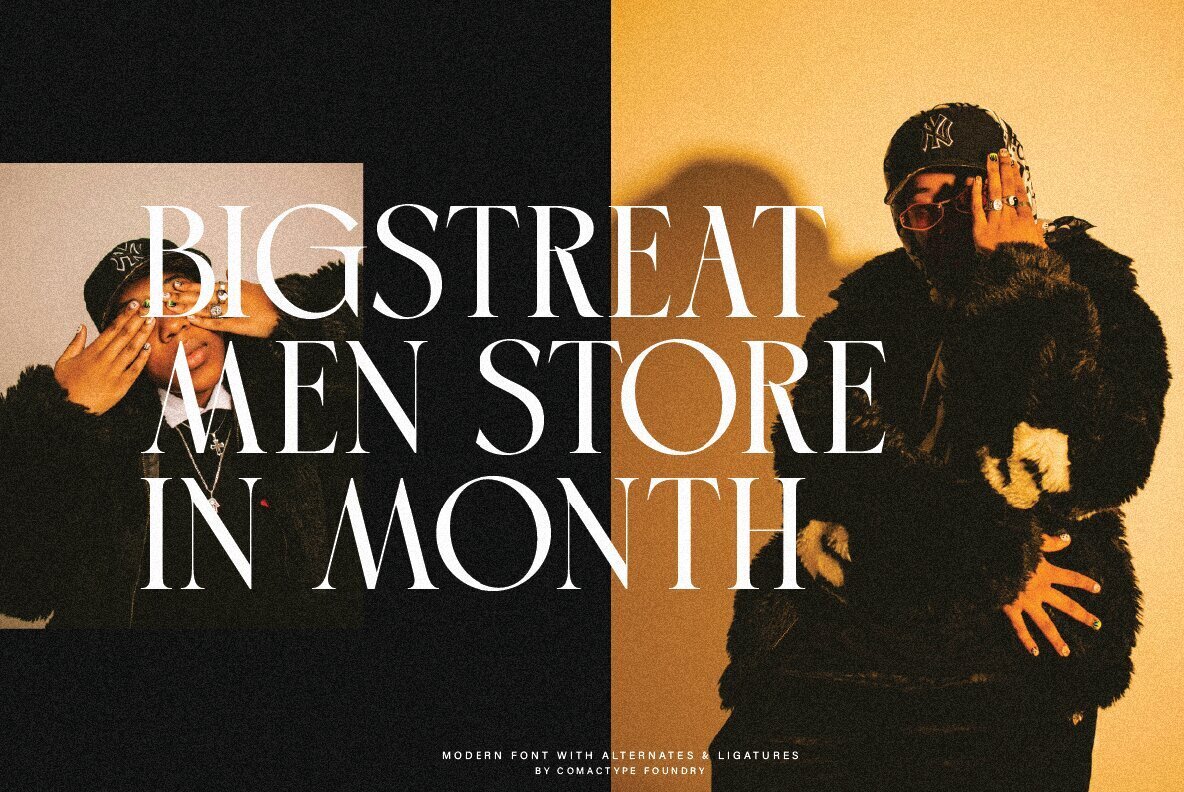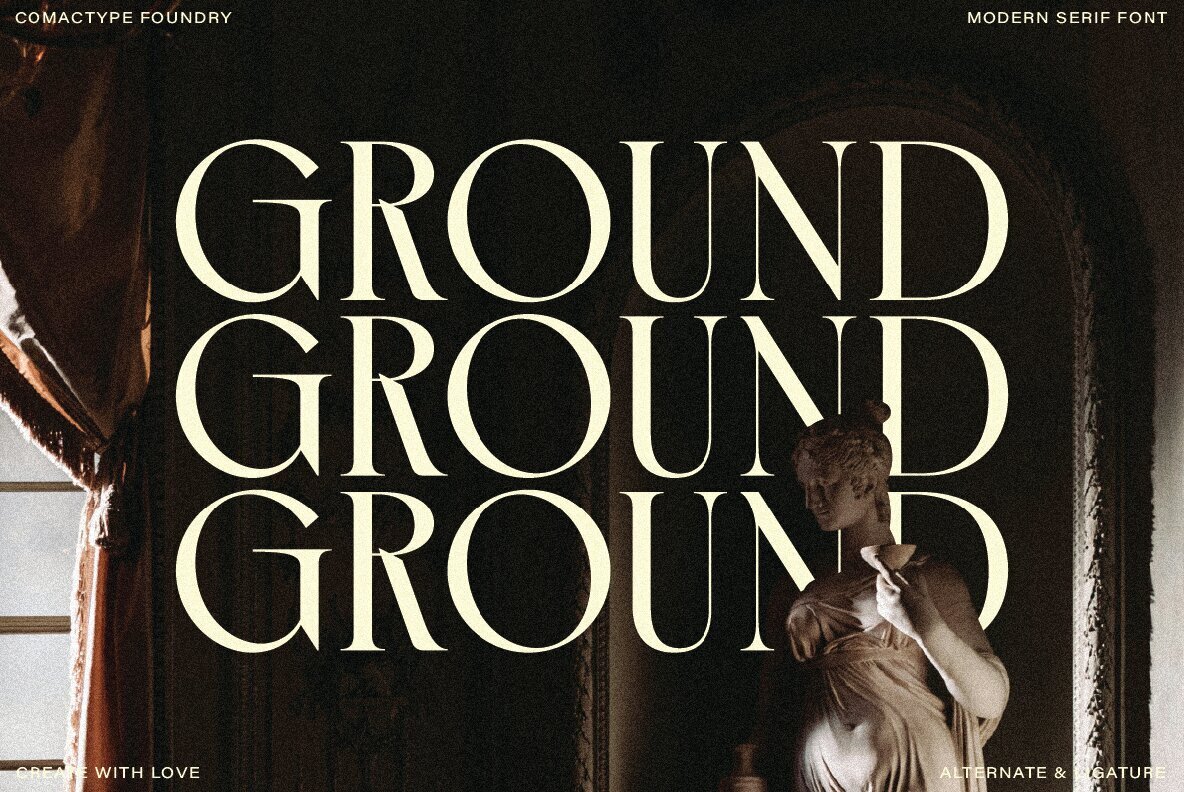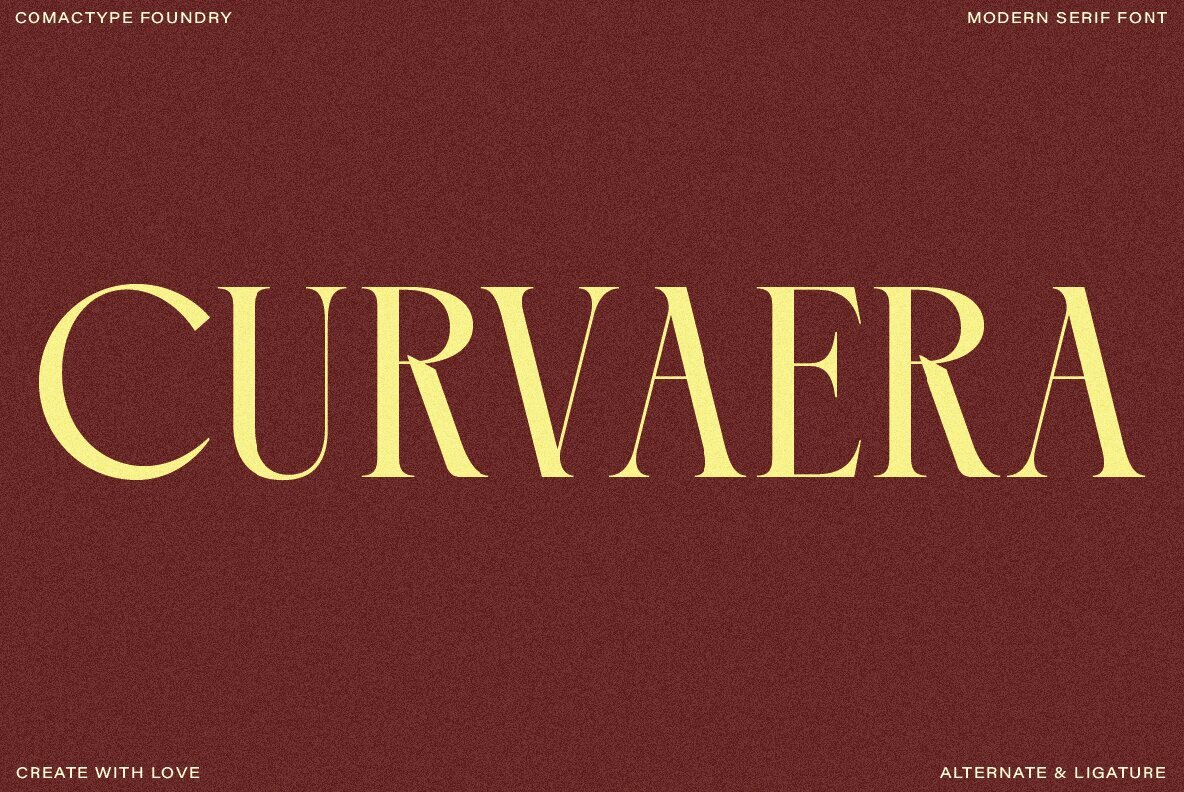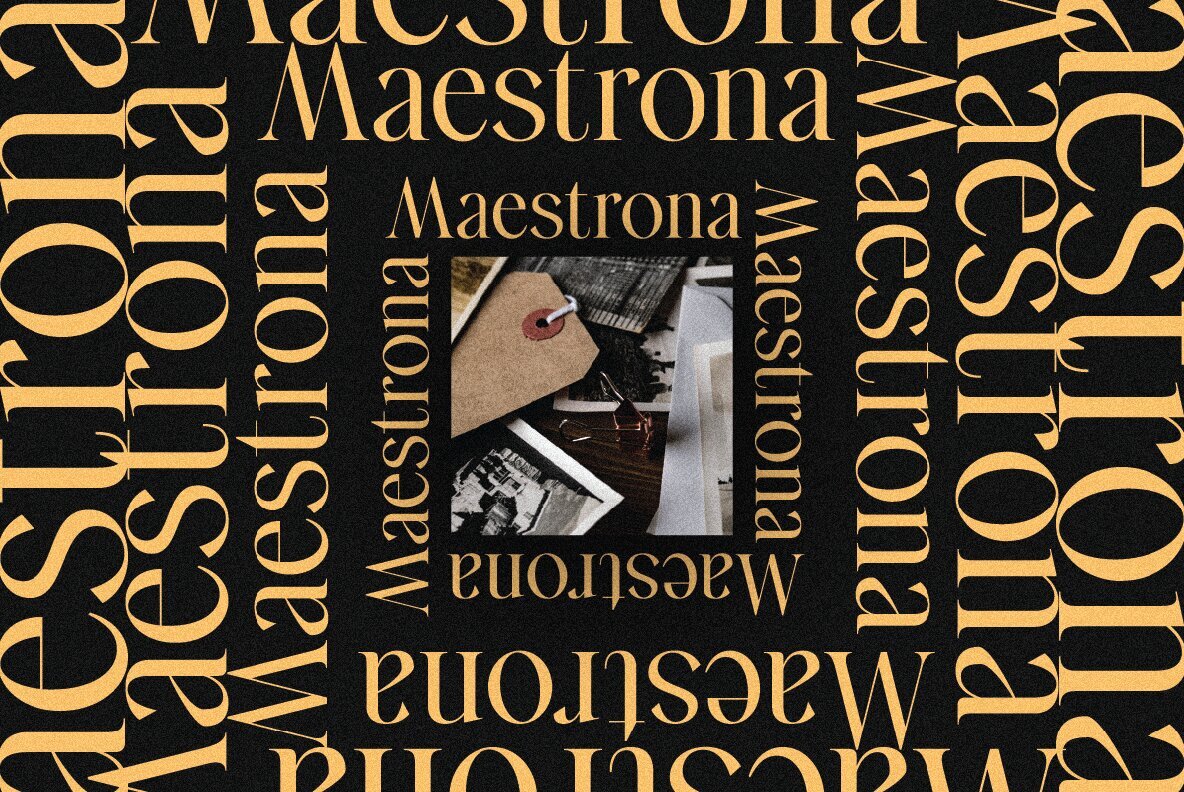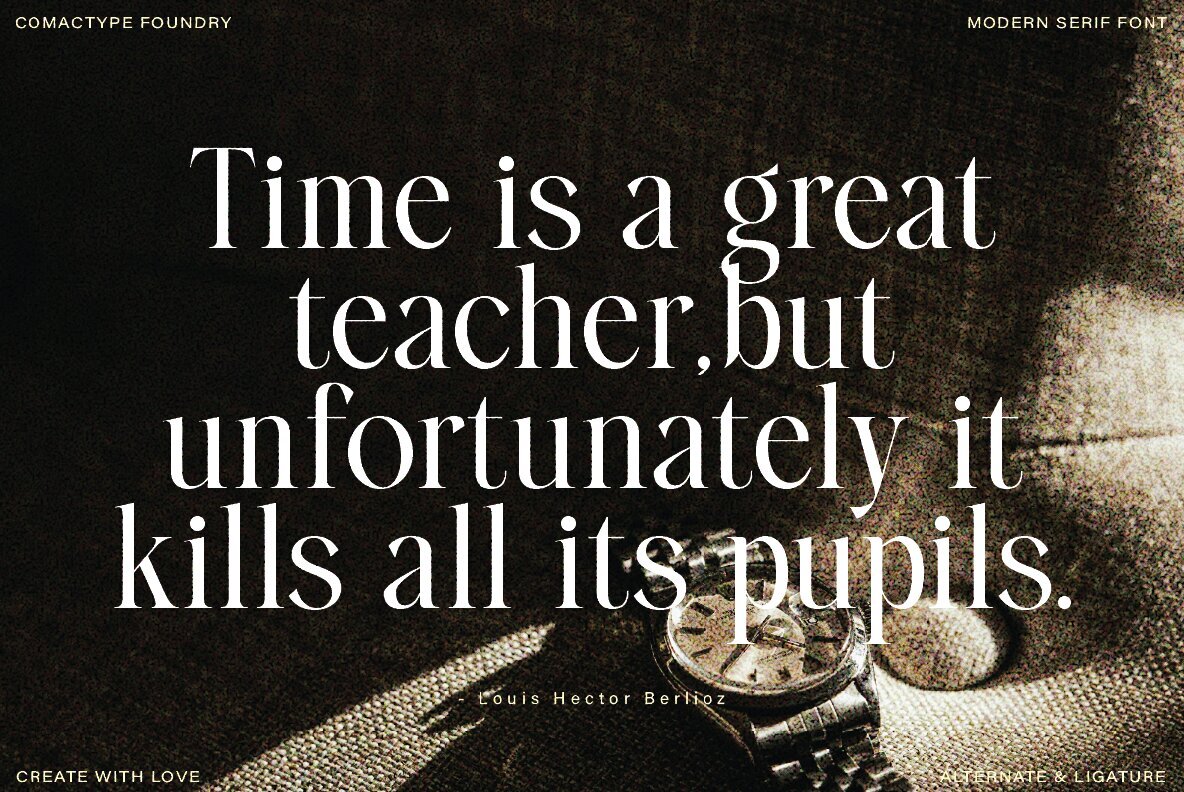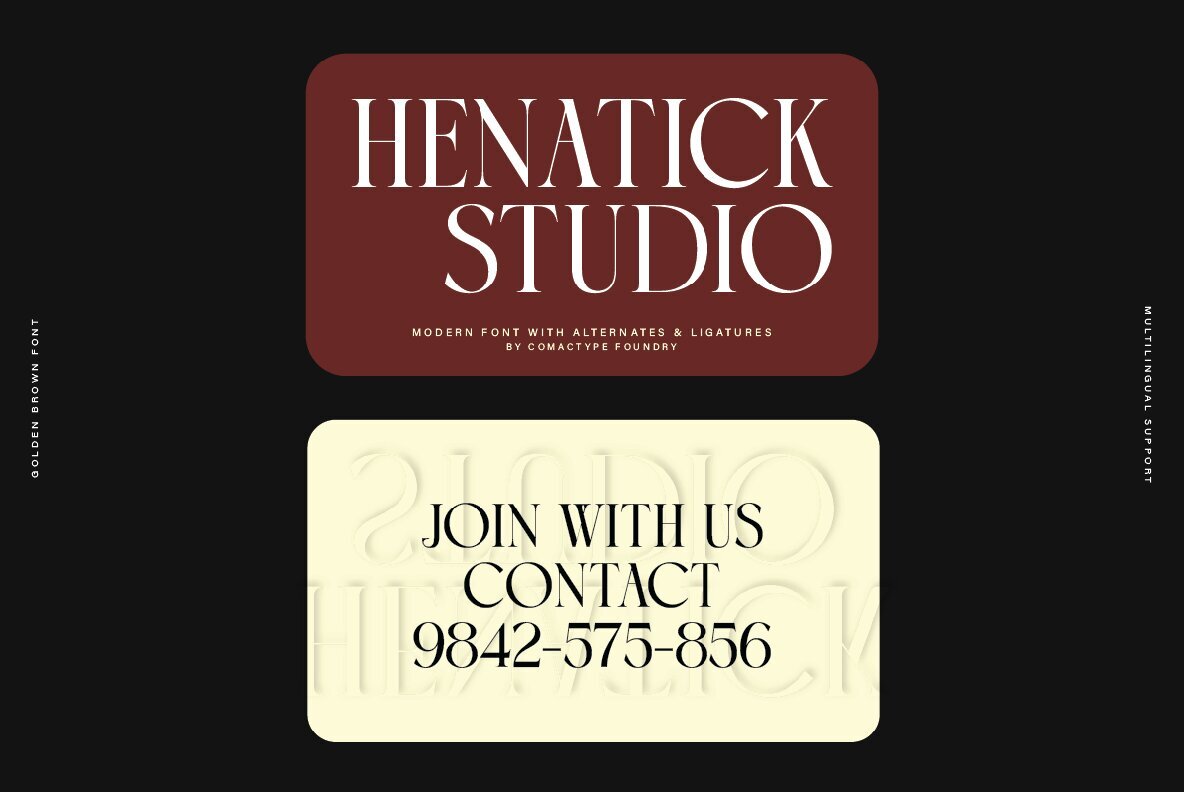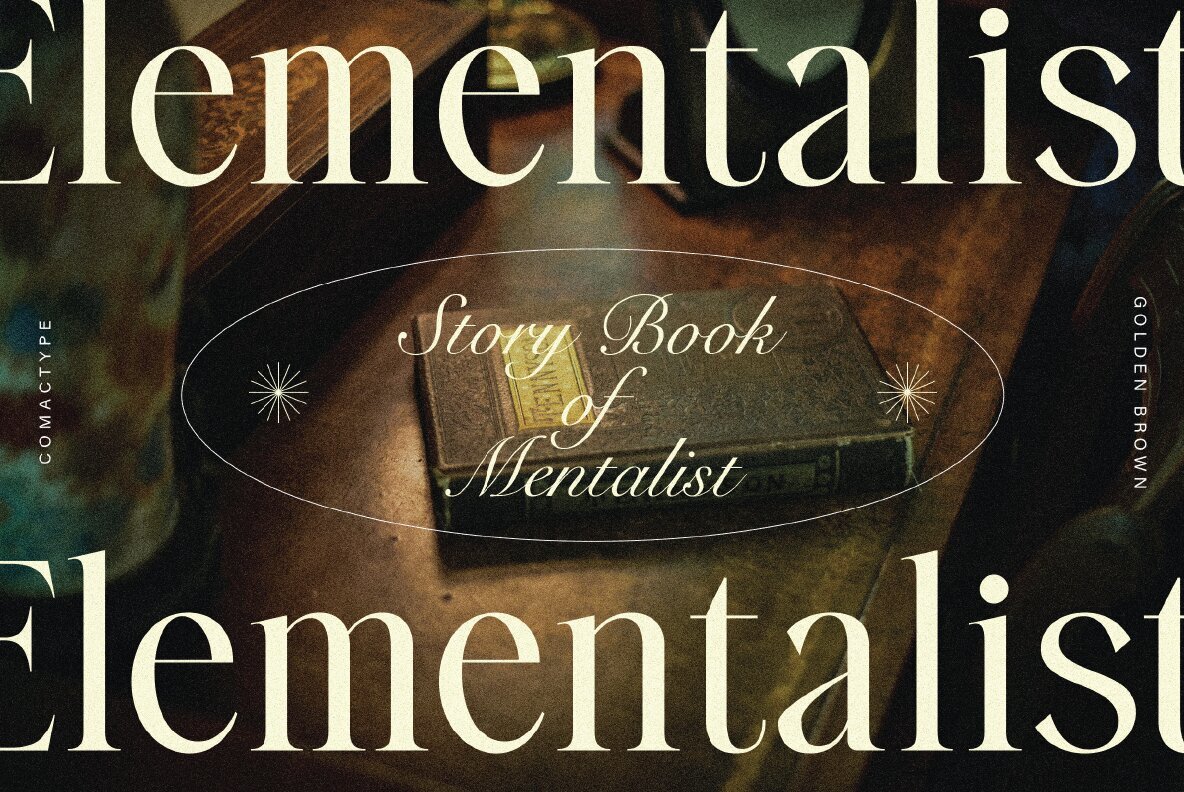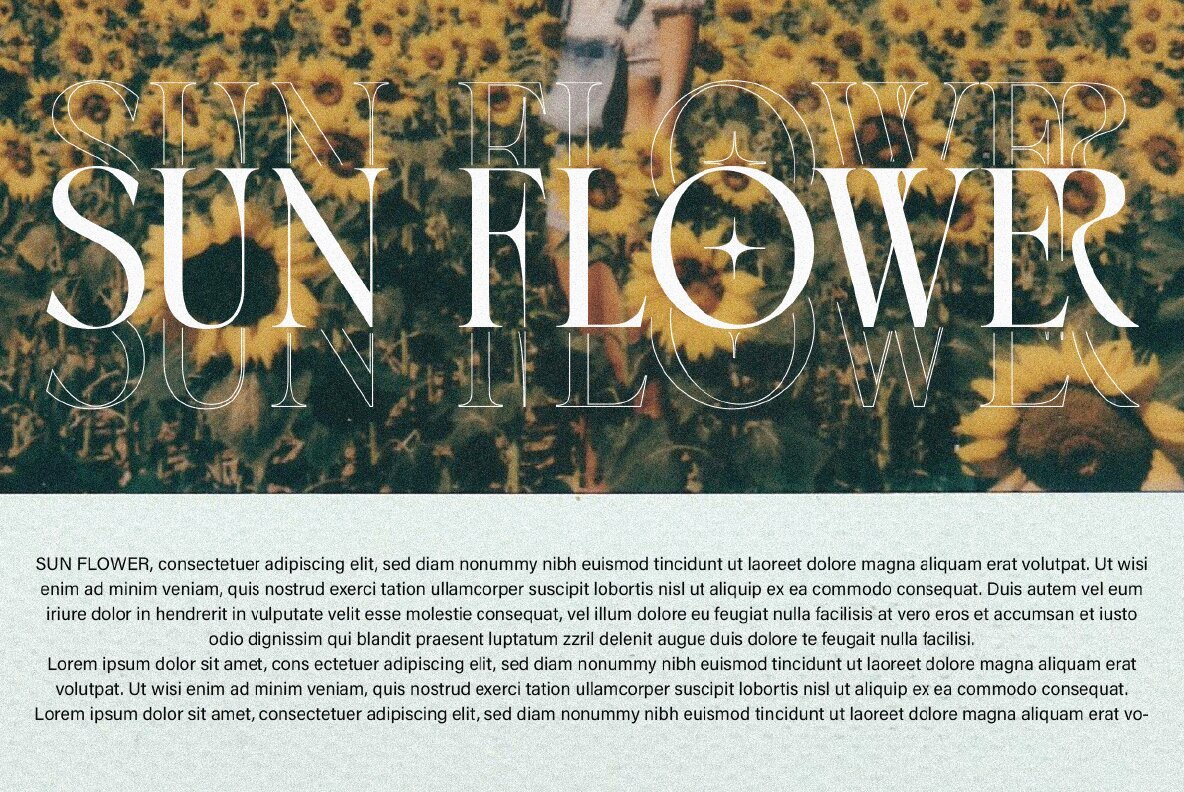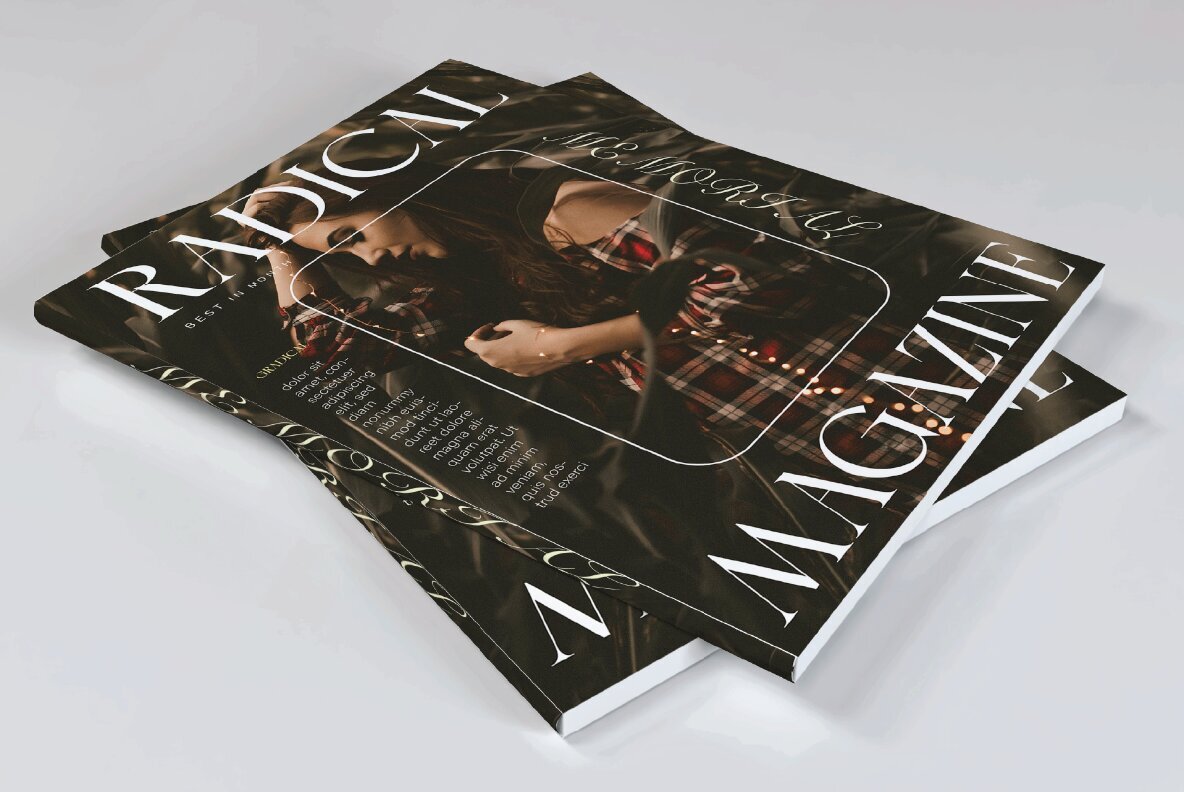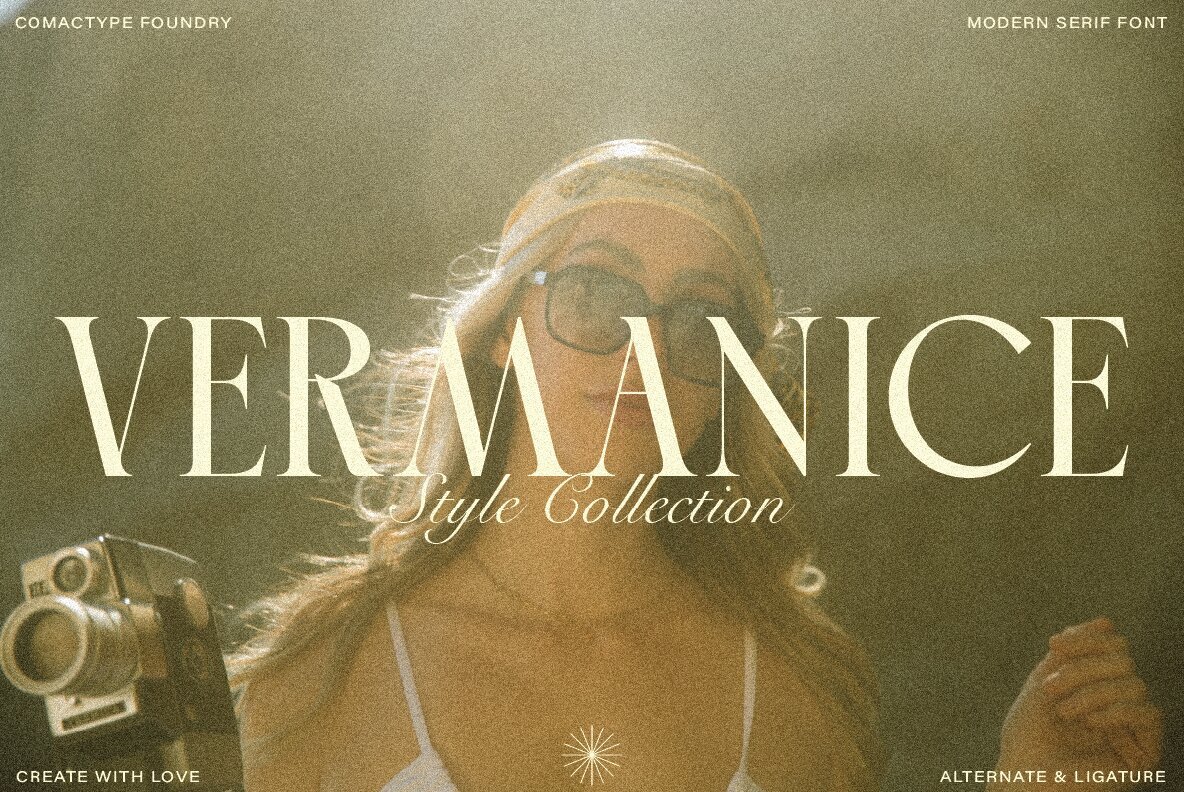
Golden Brown Font
Golden Brown Regular
GOLDEN BROWN is a modern serif typeface designed to convey elegance, uniqueness, and luxury. It blends classic typography elements with a contemporary touch, featuring sleek letterforms with sharp edges and refined decorative details. The serif design gives the font a sophisticated and timeless look, making it both formal and stylish. This typeface includes alternates (alternative letter shapes) and ligatures (special character combinations), providing versatility for creating more artistic and customized typography. These features make it ideal for various design projects, such as premium branding, logos, posters, editorial designs, and formal invitations. The overall design of GOLDEN BROWN exudes a sense of modernity and professionalism while retaining a classic charm. The decorative star elements integrated into some characters add an artistic flair that enhances the font’s visual identity, making it stand out in any creative project. Created by Comactype Foundry, this typeface is designed to offer an exclusive and high-end feel. It is perfect for projects aiming to showcase a luxurious, elegant, and distinctive brand presence across both digital and print media.